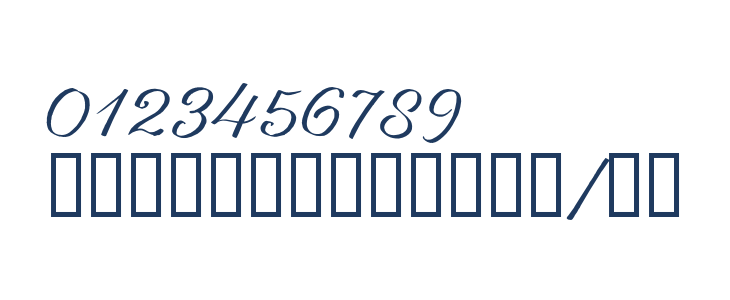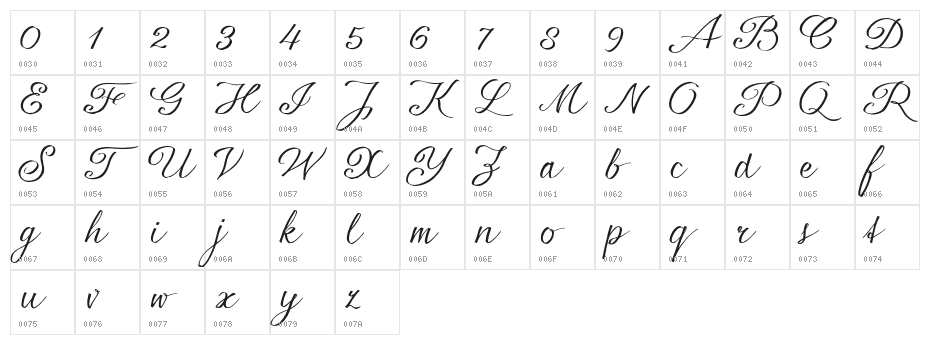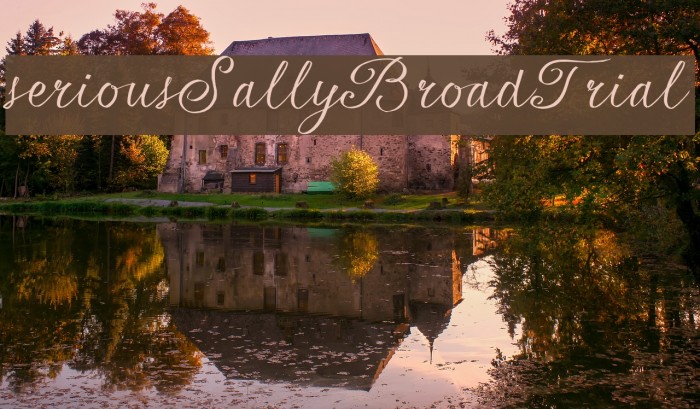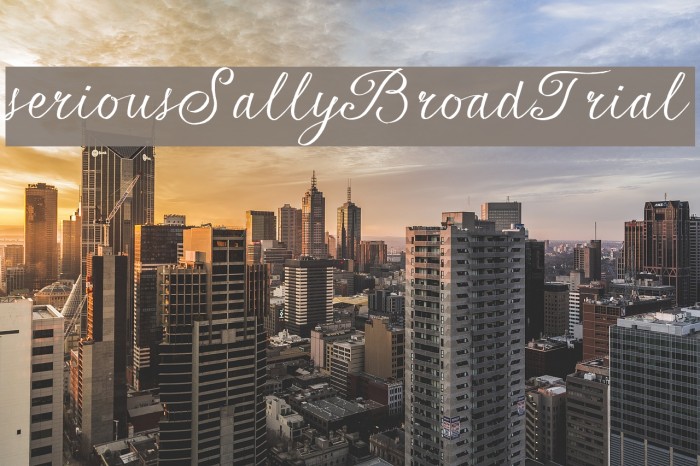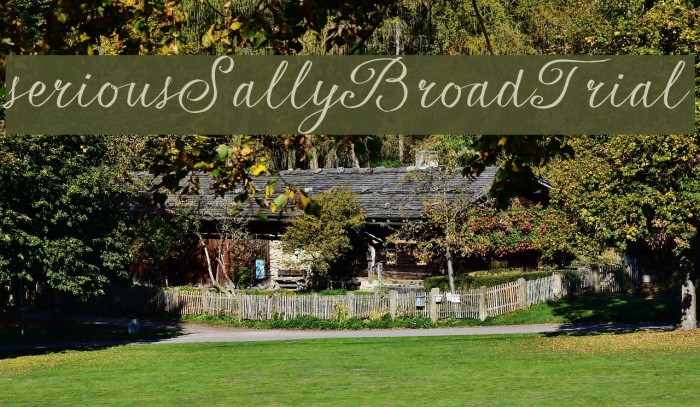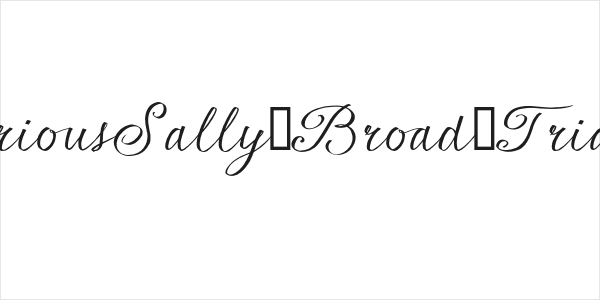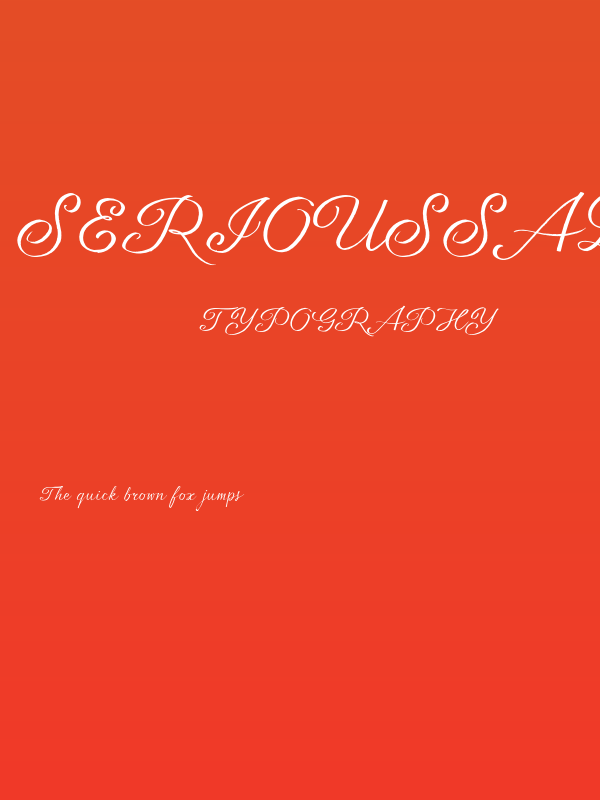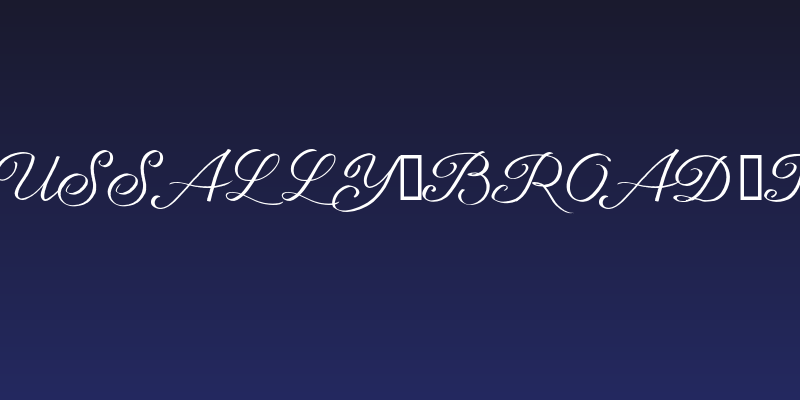
seriousSally_Broad_Trial Font
seriousSally_Broad_Trial Description
This elegant script font features flowing, cursive letters with a classic and sophisticated style. The uppercase letters are ornate with graceful loops and swirls, while the lowercase letters maintain a consistent, fluid motion. The numerals are designed to complement the letters, with a similar flowing style. The special characters are crafted to blend seamlessly with the rest of the font, adding versatility. This font is ideal for projects that require a touch of elegance and formality, such as wedding invitations, formal event programs, or high-end branding materials.
| Proposed Projects | Wedding invitations, formal event programs, high-end branding materials. |